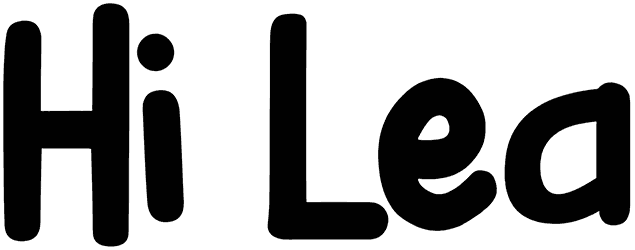
Hi Lea Font
Are you interested in casual and cute styles and want to bring such a face to your novel design? You are in the right place. Hi Lea is a modest comic font that has a thick and realistic form. Hi Lea, font is going to be a perfect selection for many designs, like a kids’ book, an Instagram story, and so on.